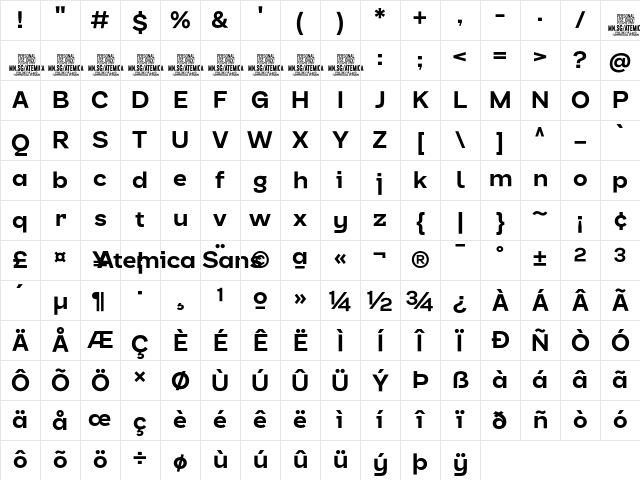
Atemica Sans PERSONAL USE Regular Free Font
Atemica Sans PERSONAL USE Regular
Foundry: Mans Greback AB
Designer: Mans Greback
Design Context for Atemica Sans PERSONAL USE
Atemica Sans PERSONAL USE is a composed and adaptable typeface that performs quietly and consistently across a wide range of design contexts.